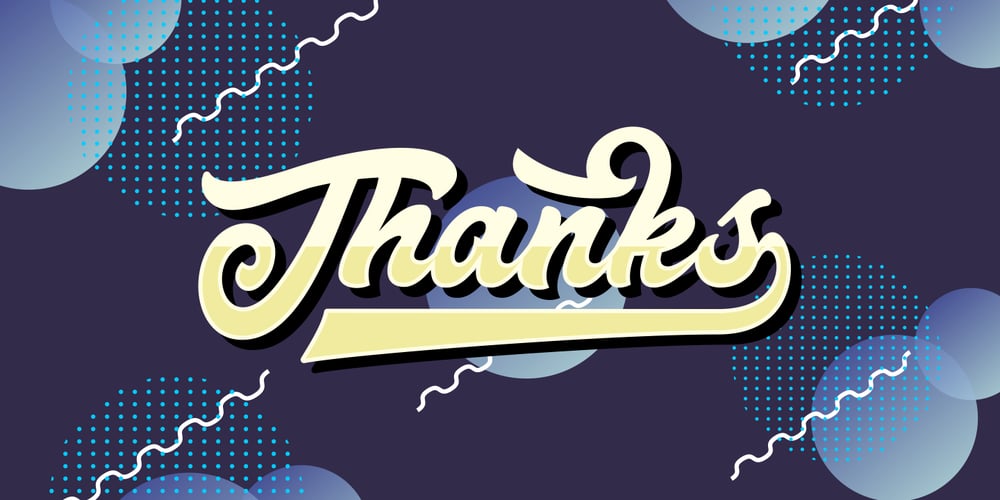
Mattoa
Mattoa font
Mattoa Font Family was designed by Amir Subqi Setiaji, Bangkit Tri Setiadi and published by Bombastype. Mattoa contains 2 styles and family package options. Introduce Mattoa, a bold and sporty script. This font is very great for bold logotype . Comes with many swashes options that you can play with. Will works well for both modern and retro style. If you need a font for your display purposes, you defintely need to consider this font.